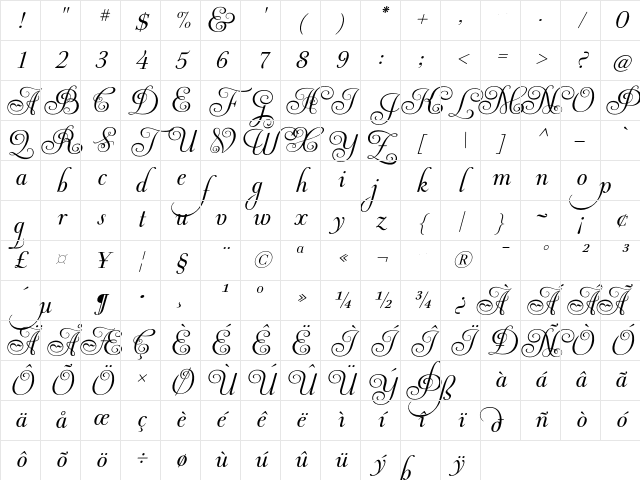
Andrade Pro Script
Style: Script
Foundry: Dino dos Santos _DSType
Designer: Dino dos Santos
Design Context for Andrade Pro
Andrade Pro flows with the natural rhythm of handwritten lettering, making it ideal for designs that call for warmth and personal expression.
Font Pairing: Combine Andrade Pro with a simple geometric sans for maximum contrast - the tension between flowing curves and clean structure is a classic typographic pairing.
Pro Tip: Use Andrade Pro for short runs of text - names, titles, or taglines. Extended body copy in script faces tires the eye quickly.
Who designed the Andrade Pro Script font?